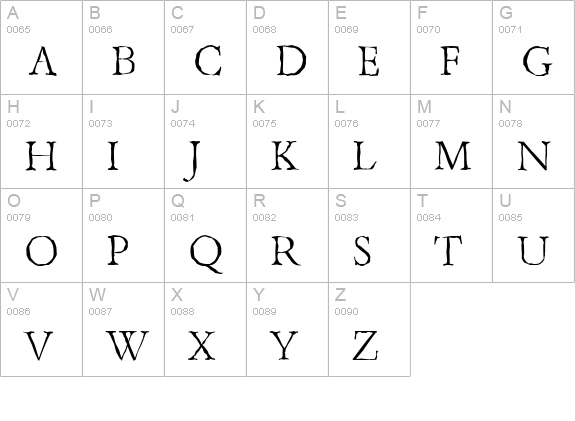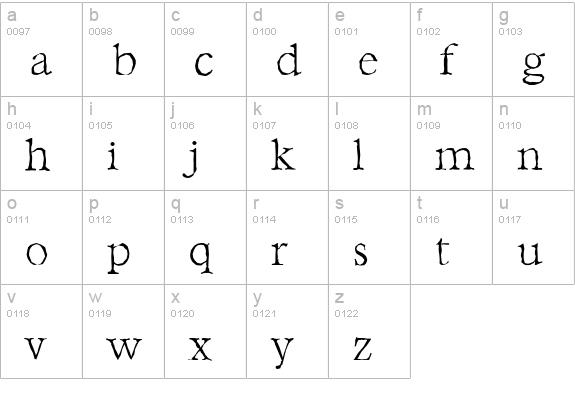
BernsteinAntique-Xlight-Regular is the standard, neutral variant in the BernsteinAntique typeface family \xE2\x80\x94 well suited to general body text, paragraphs, and standard typographic work.
BernsteinAntique-Xlight-Regular is a classic and elegant serif font that exudes sophistication and timelessness. Its delicate strokes and refined details make it perfect for adding a touch of vintage charm to any project. With its traditional yet modern design, this font is versatile and can be used for a wide range of applications, from branding to editorial design. This font is available for free download on FontsMarket.com, making it easily accessible to designers and creatives looking to elevate their projects with a touch of old-world elegance. Whether you're working on a logo, a website, or a print design, BernsteinAntique-Xlight-Regular is sure to add a touch of class and sophistication to your work. Download this font today and bring a touch of timeless beauty to your creations.